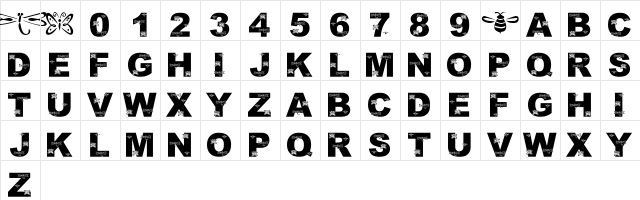
LMS Found In Candice's Garden Regular
Design Context for LMS Found In Candice's Garden Typeface
LMS Found In Candice's Garden takes a measured approach to typography — its balanced proportions and neutral character make it a reliable workhorse for both digital and print work.
Pro Tip: Use LMS Found In Candice's Garden in both headline and body roles to test its range before committing to a single application.